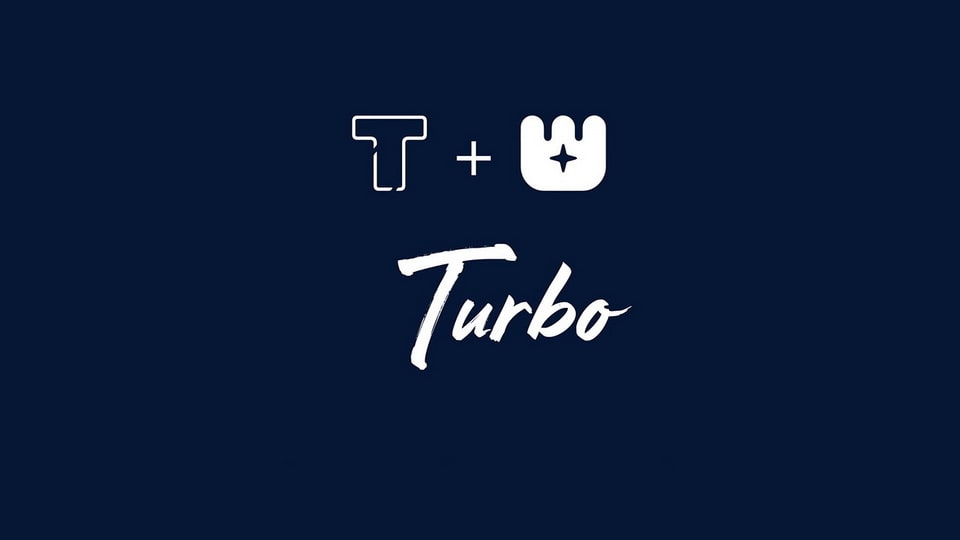
Download LT Turbo font, a brush typeface that is perfect for vaporwave beach themed designs. It has a retro feel that evokes the beach and surfing culture of the 1980s.
Designer: LyonsType